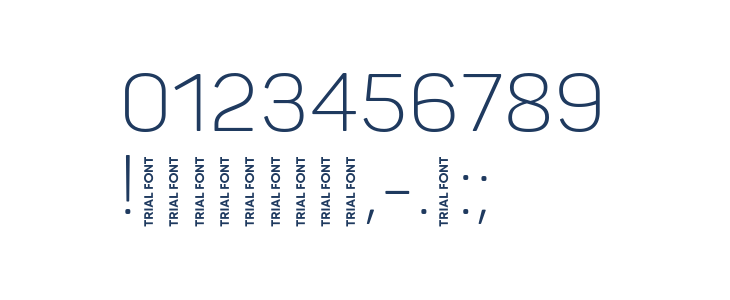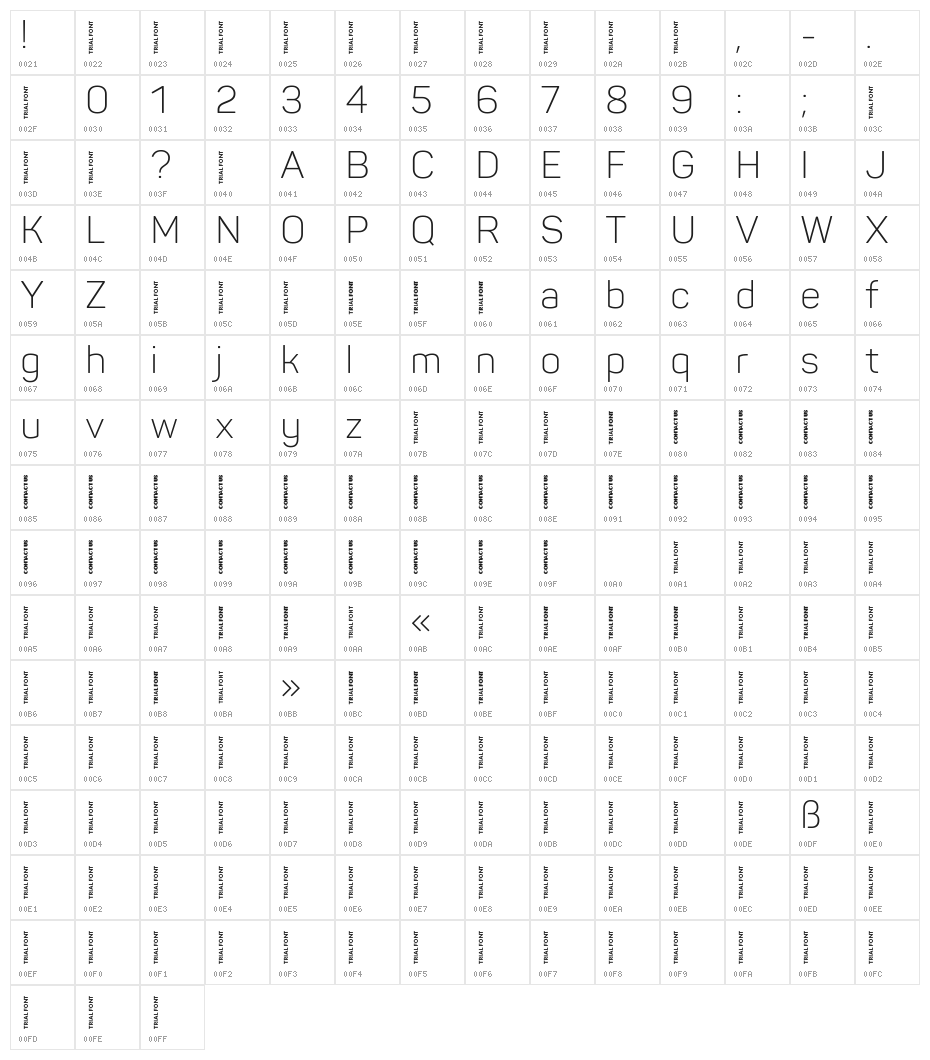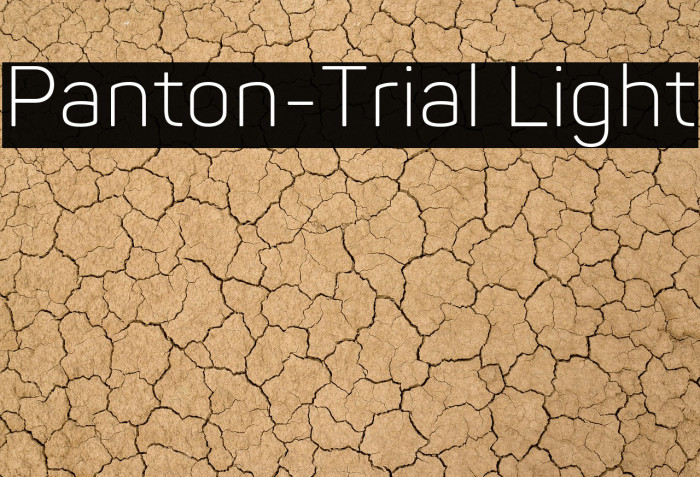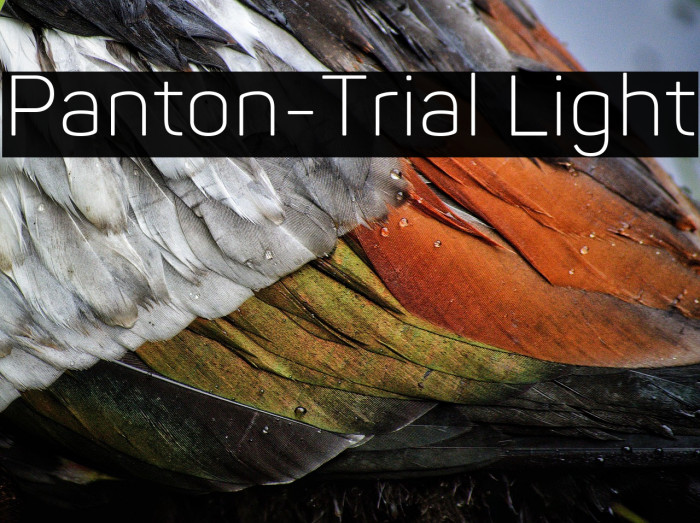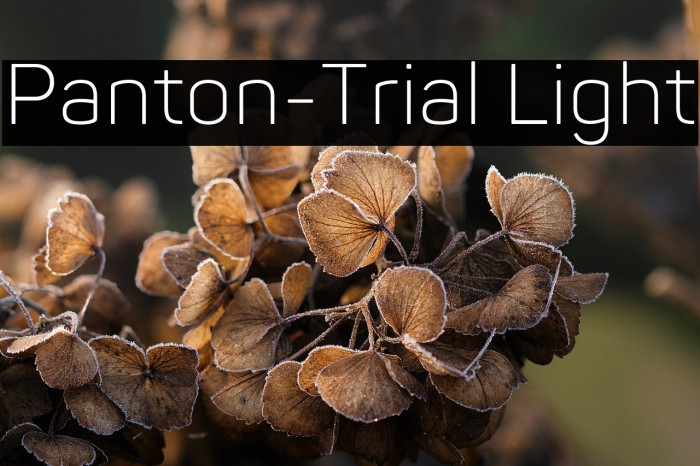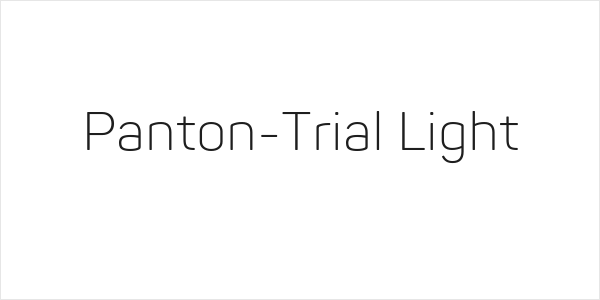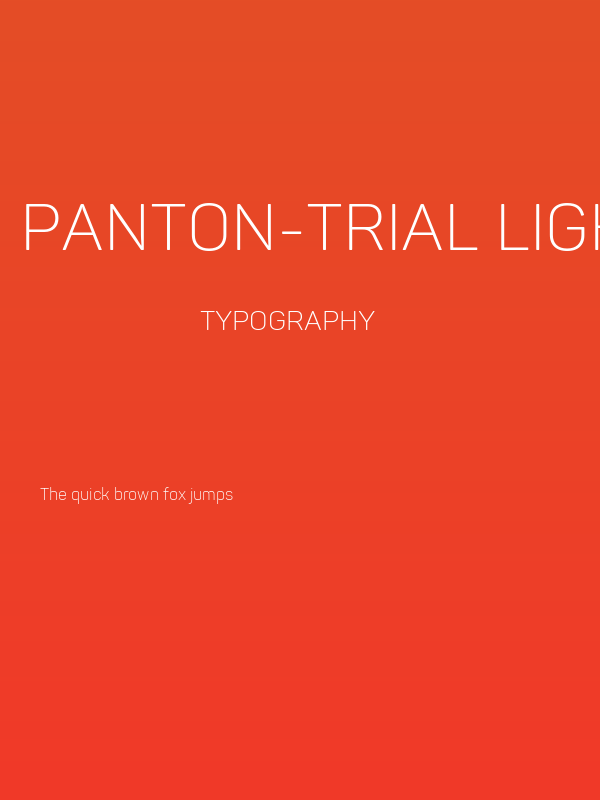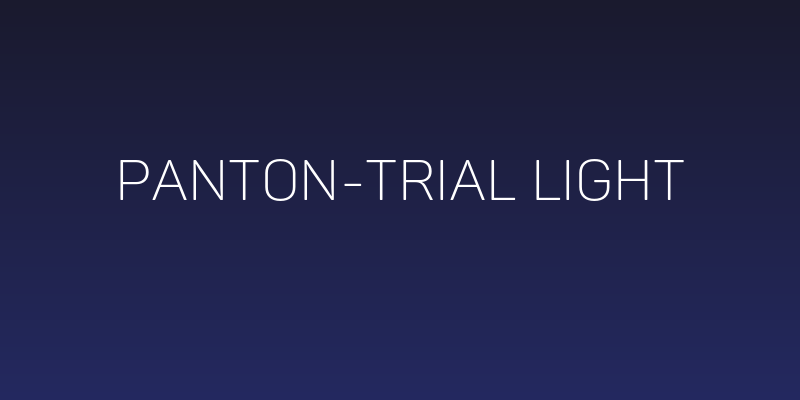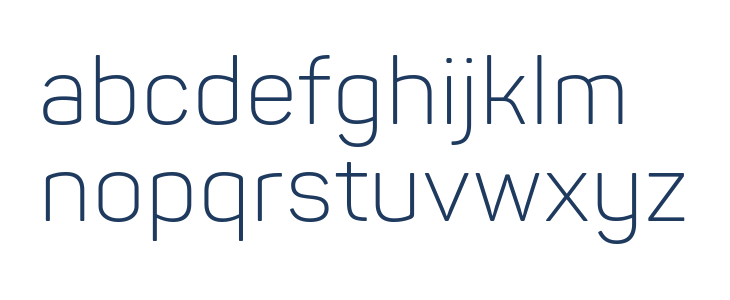
Panton-Trial Light Font
This font features a clean and modern sans-serif design with a light weight, offering a sleek and minimalist appearance. The characters are well-proportioned with a consistent stroke width, providing a harmonious and balanced look. The uppercase and lowercase letters maintain a uniform style, enhancing readability and visual appeal. The numerals are clear and distinct, making them suitable for various applications. The special characters are designed to complement the overall aesthetic, ensuring versatility in usage.